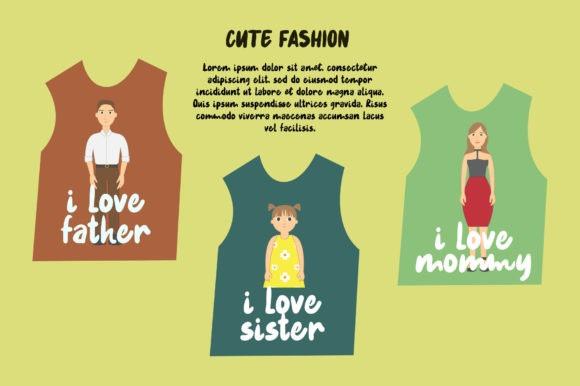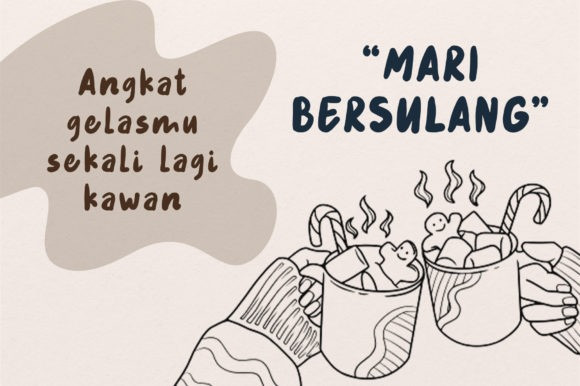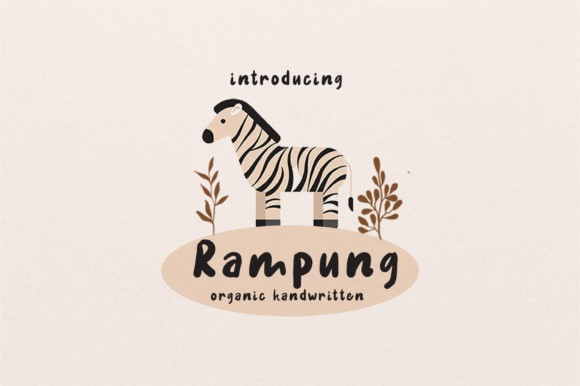
Rampung Font
Rampung Font is a cute and simple lettered handwritten font that can be used for all chalkboard quotes or teaching material! Its authentic look will add a personal and realistic feel to your designs.